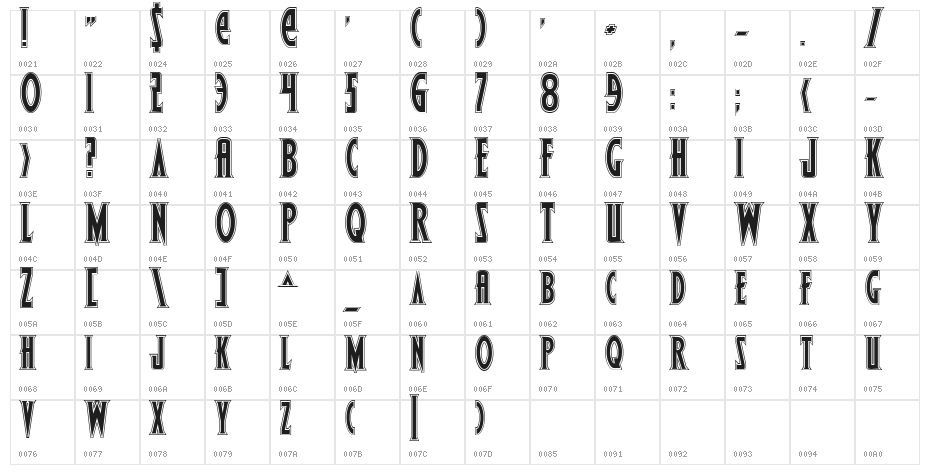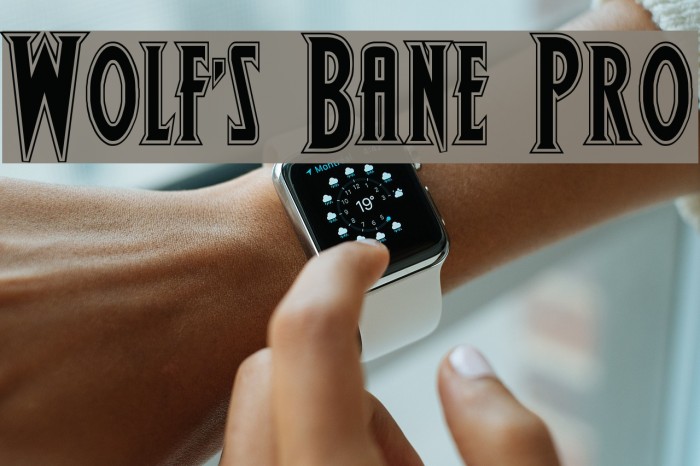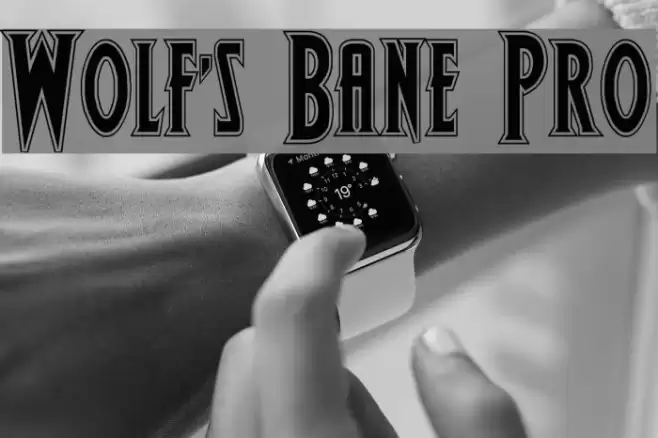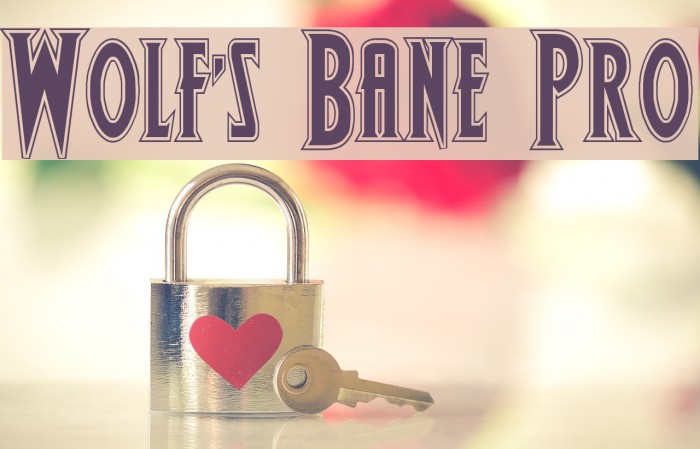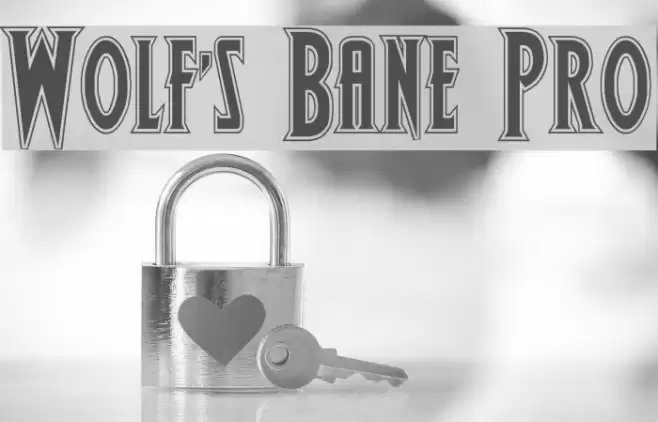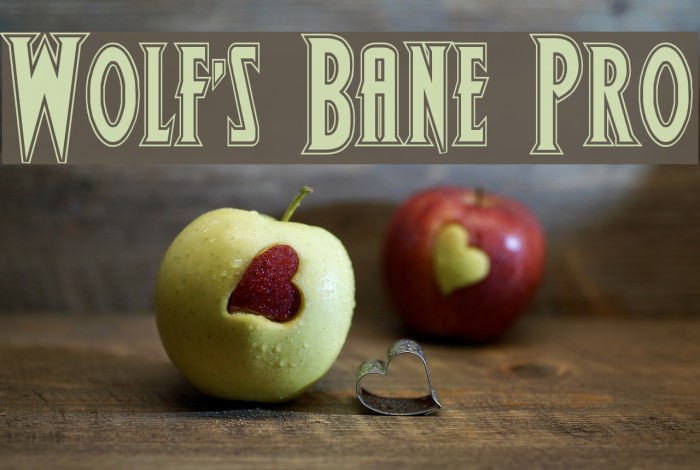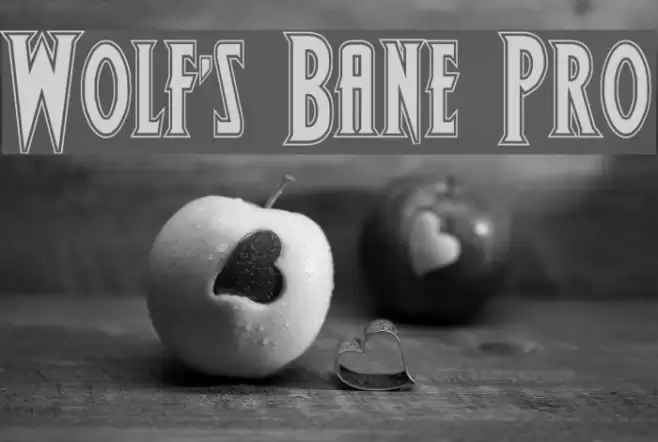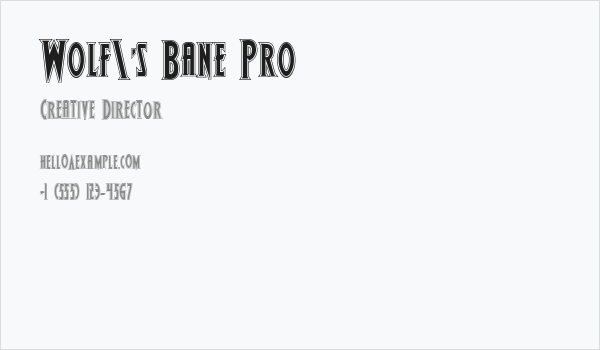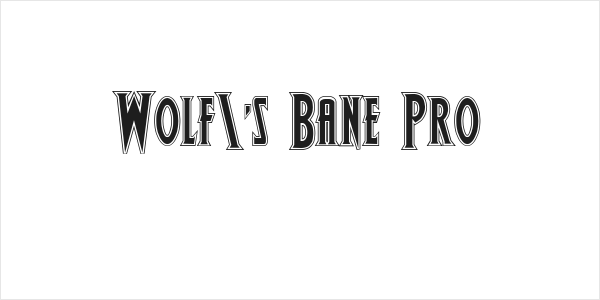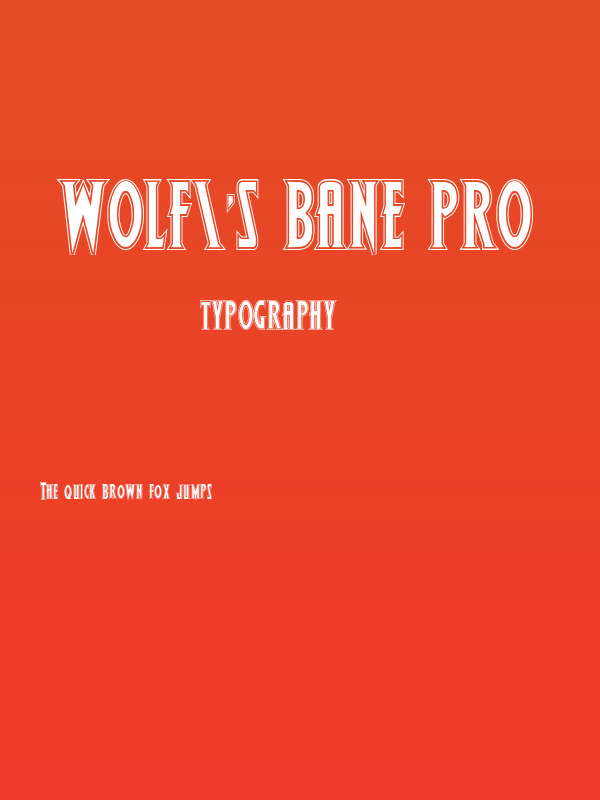
Wolf's Bane Pro Font
Wolf's Bane Pro Description
This font features a bold, decorative style with a strong presence. The characters are outlined with a thick black border, creating a striking contrast against the inner white space. The letters have a tall, narrow form with sharp, angular serifs that add a sense of drama and intensity. The numbers and special characters maintain the same bold and decorative style, ensuring consistency across all glyphs. The overall design is reminiscent of vintage or gothic themes, making it suitable for projects that require a bold and eye-catching typeface.
| Overall Style | Vintage, Gothic |
| Proposed Projects | This font is perfect for creating impactful headlines, posters, logos, and branding materials that require a vintage or gothic aesthetic. |